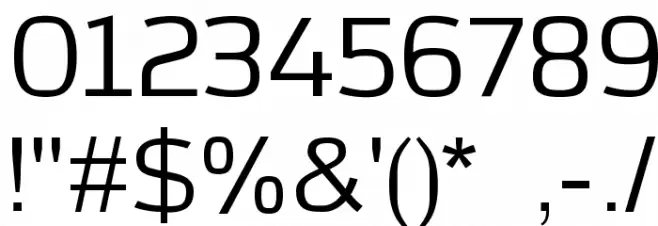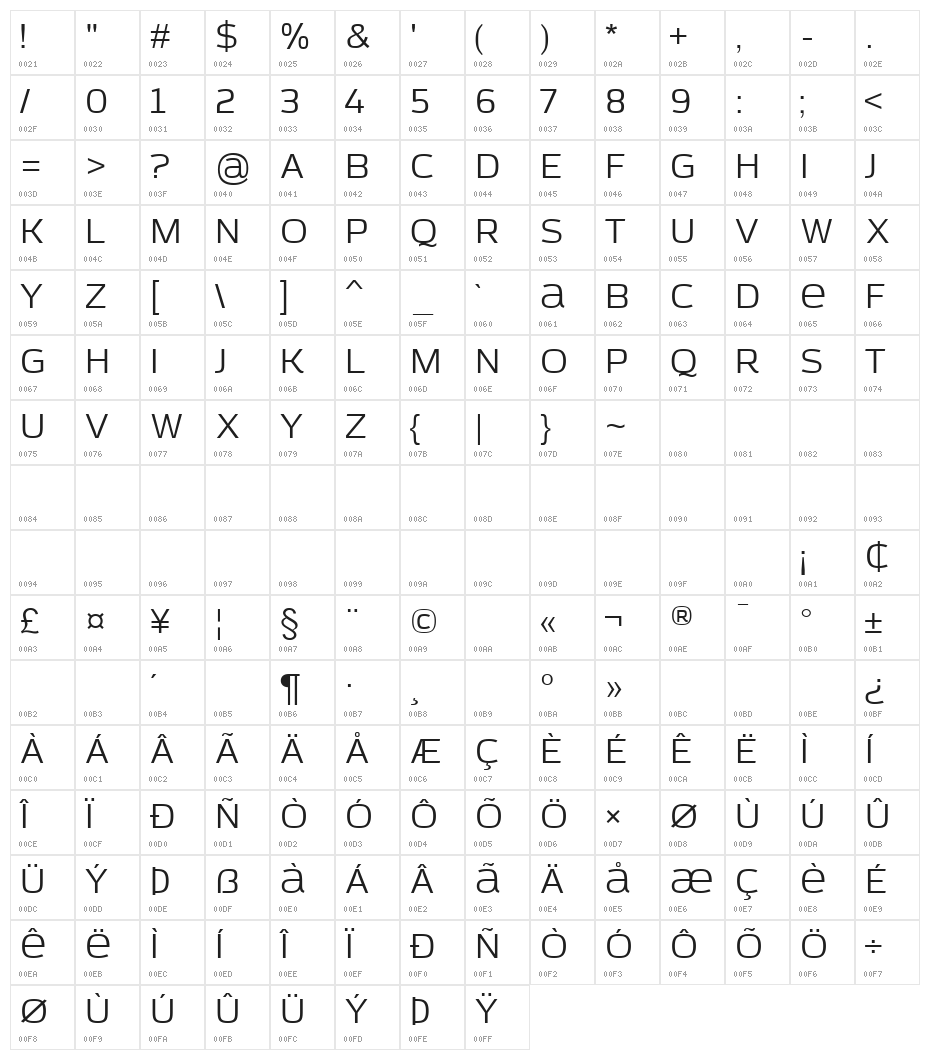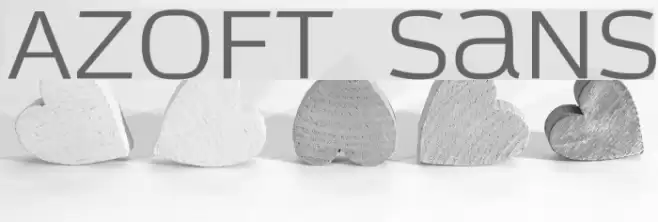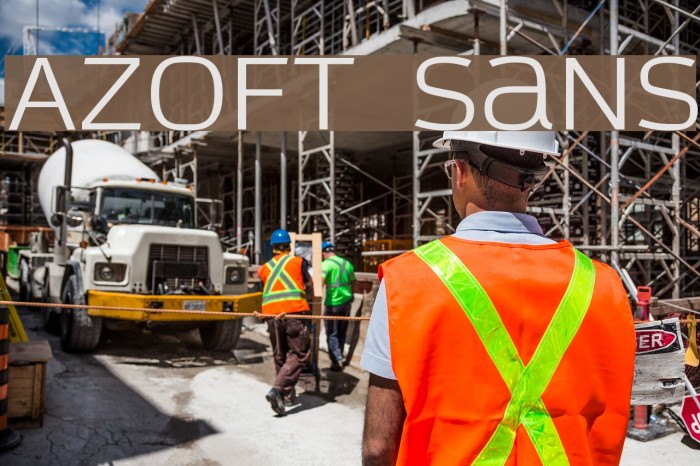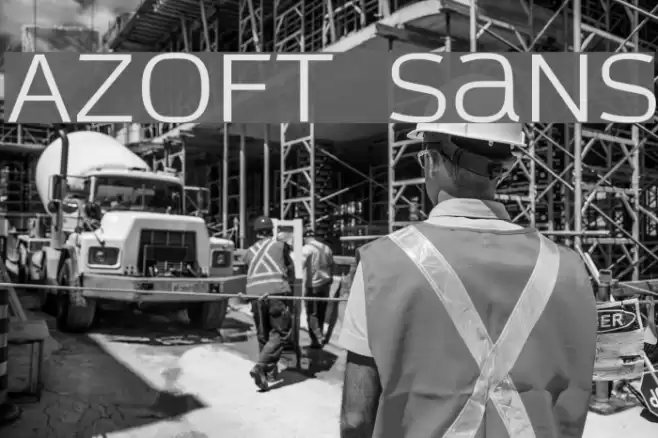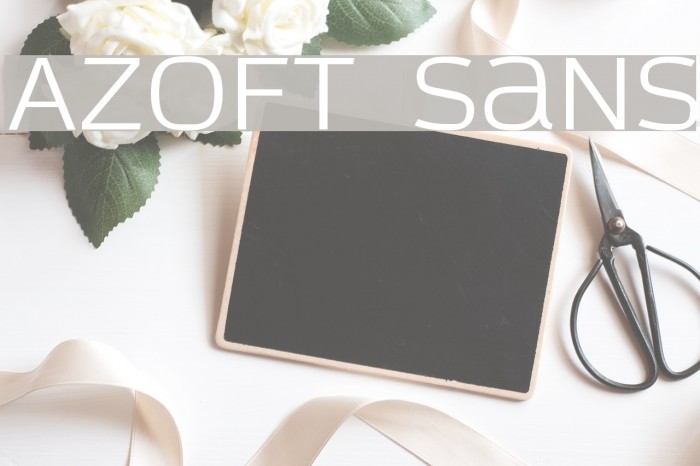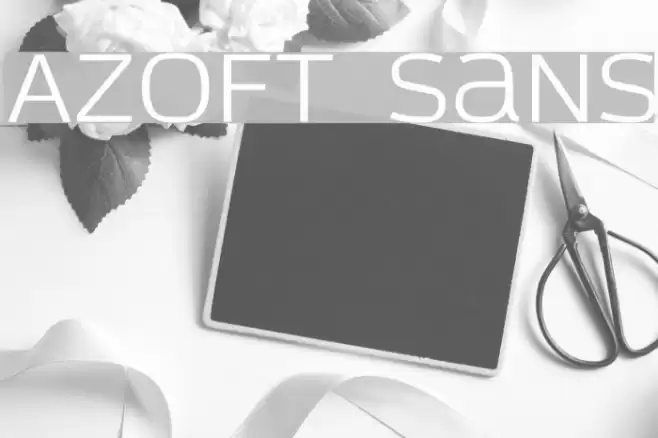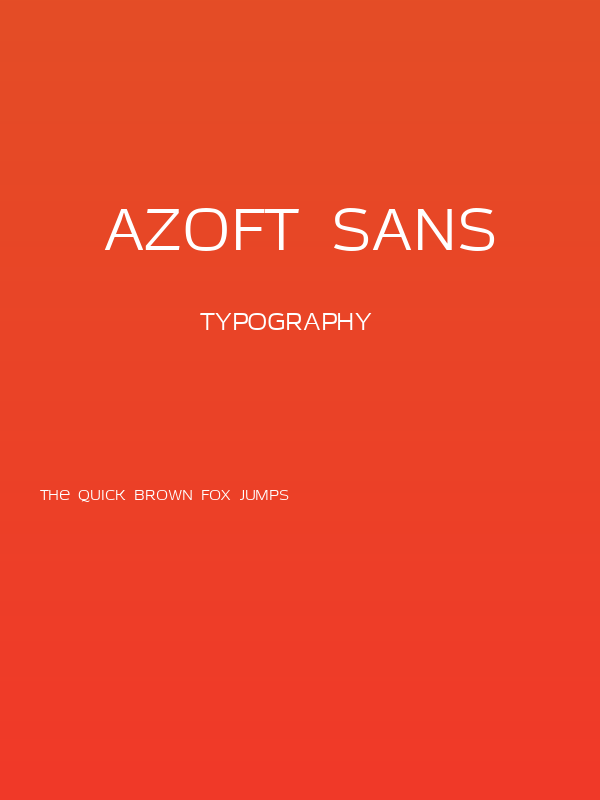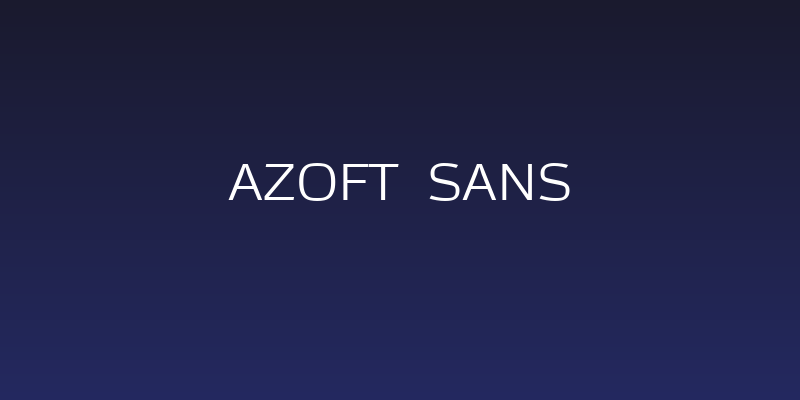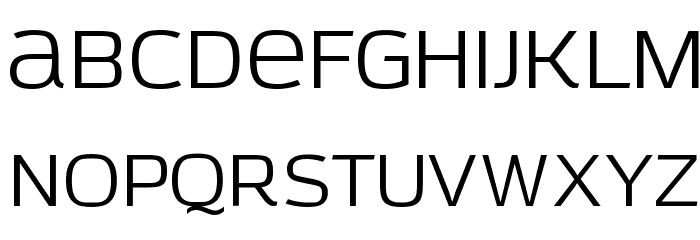
Azoft Sans Font
Azoft Sans Description
This font features a clean and modern sans-serif design with a geometric structure. The characters are well-proportioned, offering a balanced and harmonious appearance. The uppercase letters are bold and assertive, while the lowercase letters maintain a consistent flow, enhancing readability. The numerals are clear and distinct, making them suitable for both digital and print applications. Special characters are designed with precision, ensuring they integrate seamlessly with the rest of the typeface. The overall look is sleek and professional, making it versatile for various design needs.
| Proposed Projects | Ideal for corporate branding, web design, user interfaces, and editorial layouts. |